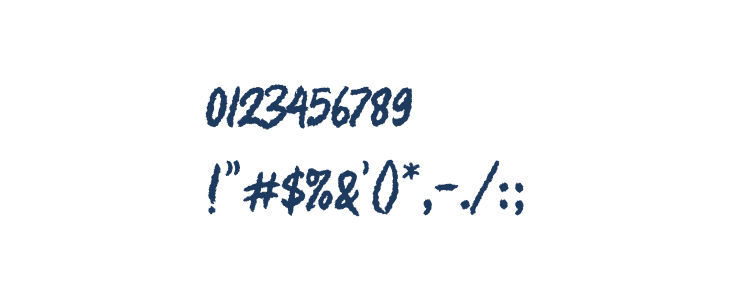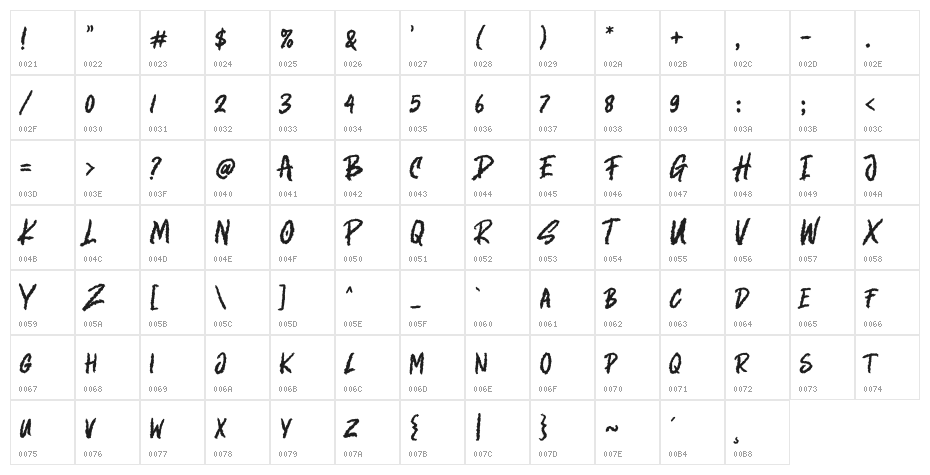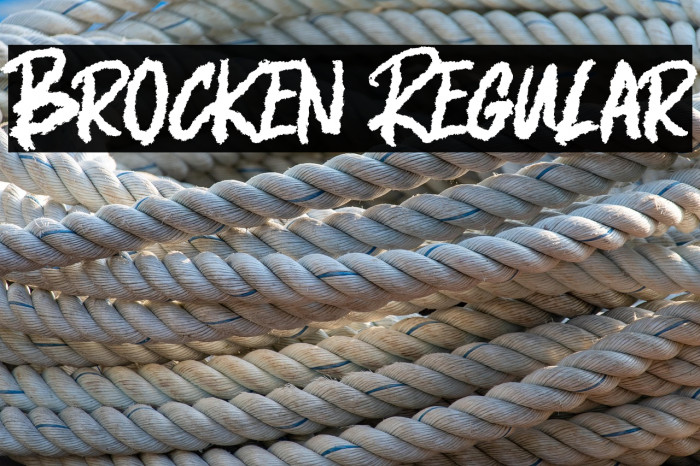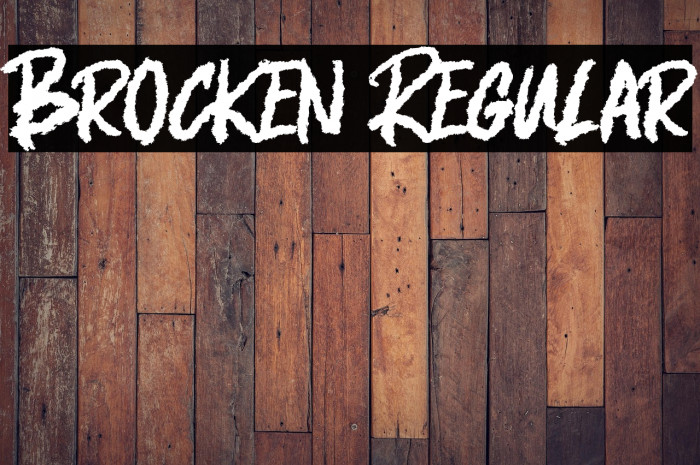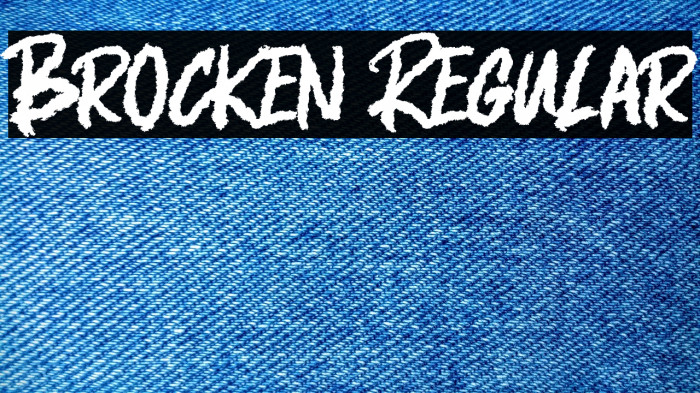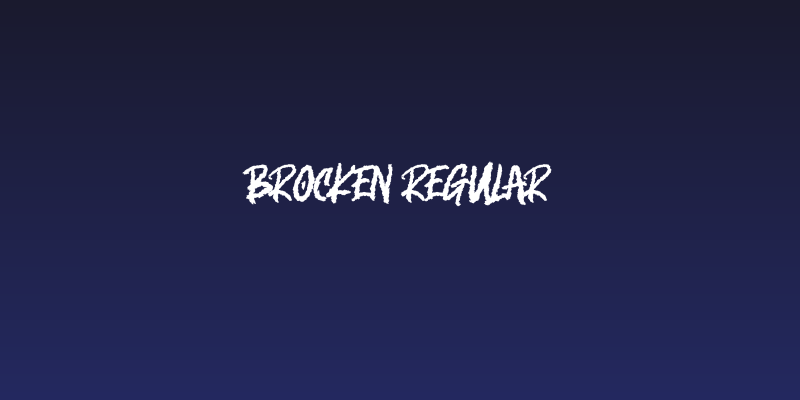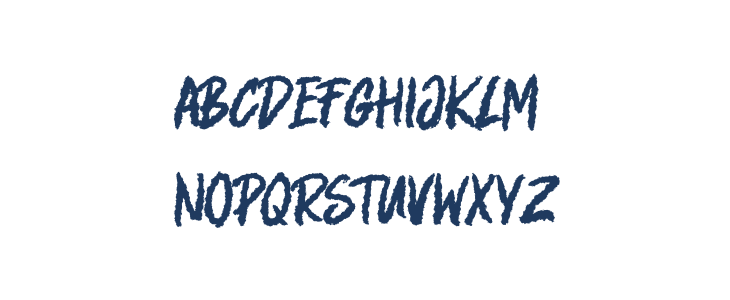
Brocken Regular Font
Brocken Regular Description
This font features a bold, energetic style with a hand-drawn appearance, characterized by its rough, textured edges and dynamic strokes. The uppercase and lowercase letters maintain a consistent, lively rhythm, while the numerals and special characters complement the overall aesthetic. Its design evokes a sense of movement and spontaneity, making it ideal for projects that require a touch of creativity and flair. The font's unique personality is evident in its irregular line thickness and slightly slanted orientation, which adds to its informal and artistic appeal.
| Proposed Projects | Ideal for posters, album covers, graffiti art, and creative branding projects. |